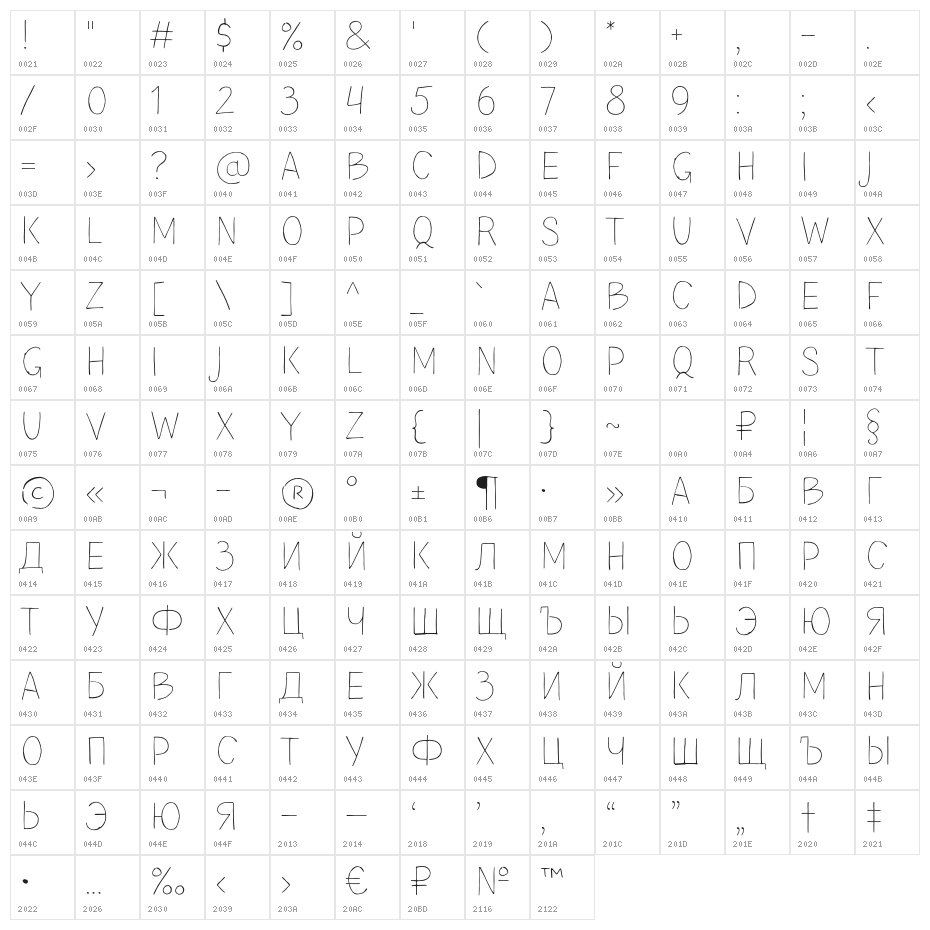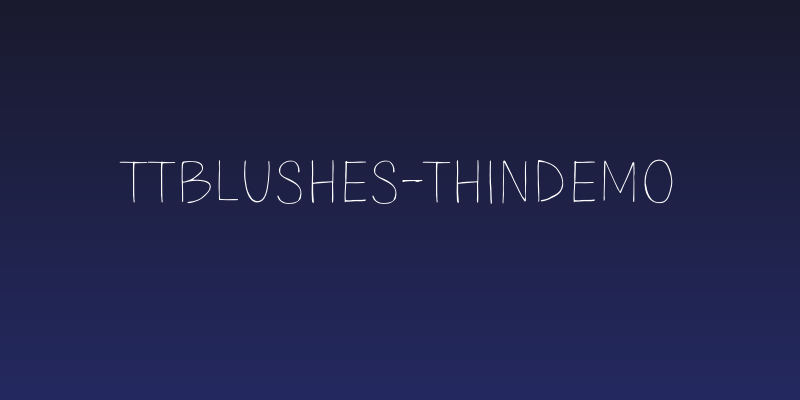
TTBlushes-ThinDEMO Font
TTBlushes-ThinDEMO Description
This font features a delicate and airy design with thin strokes that give it a light and whimsical appearance. The characters are slightly irregular, adding a hand-drawn, organic feel that is both charming and approachable. The uppercase and lowercase letters maintain a consistent style, with a slight slant that suggests movement and fluidity. The numerals and special characters are similarly styled, ensuring a cohesive look across all text. This font's thin lines and playful design make it ideal for projects that require a touch of elegance and personality.
| Proposed Projects | Ideal for greeting cards, invitations, children's books, and creative branding projects. |